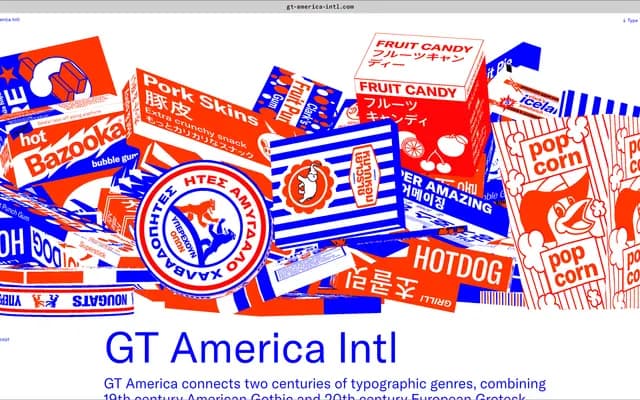
GT America Intl Collection
Grilli Type · Noël Leu with Grilli Type design team and expert partners · 2016
The multi-script extension of GT America, covering Arabic, Devanagari, Hebrew, Korean, Thai and CJK alongside Latin, Cyrillic and Greek.
The international collection built around Noël Leu's GT America, adding scripts designed by expert partners with the Grilli Type team. The Latin master ships in 84 styles and four variable fonts, with Cyrillic, Greek and Vietnamese as extensions and seven-weight Arabic, Devanagari, Hebrew, Korean and Thai cuts plus matching Simplified and Traditional Chinese (Arphic) and Japanese (Type Projects). It is the route into GT America for genuinely global identity systems.
Grilli describe GT America as a bridge between American Gothics and European Neo-Grotesks. The Intl Collection adds Arabic, Devanagari, Hebrew, Korean, Thai and matching Simplified Chinese, Traditional Chinese and Japanese scripts to the Latin family.